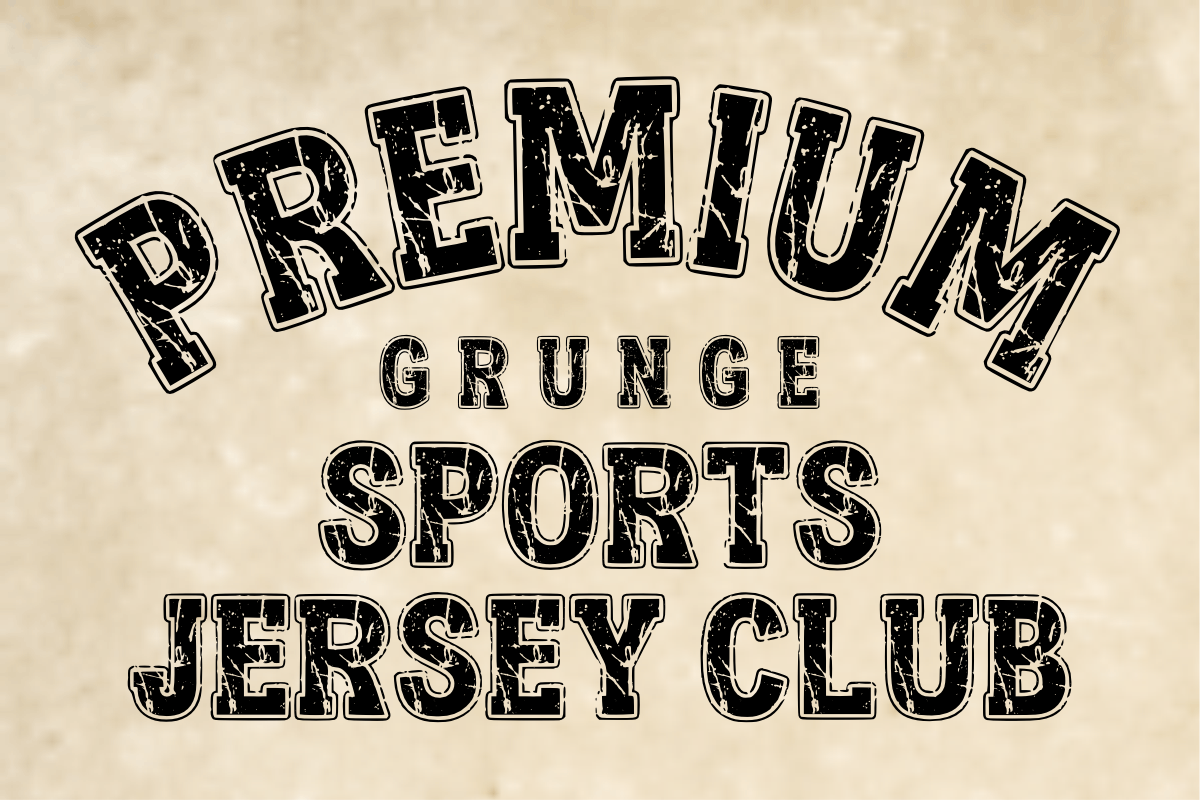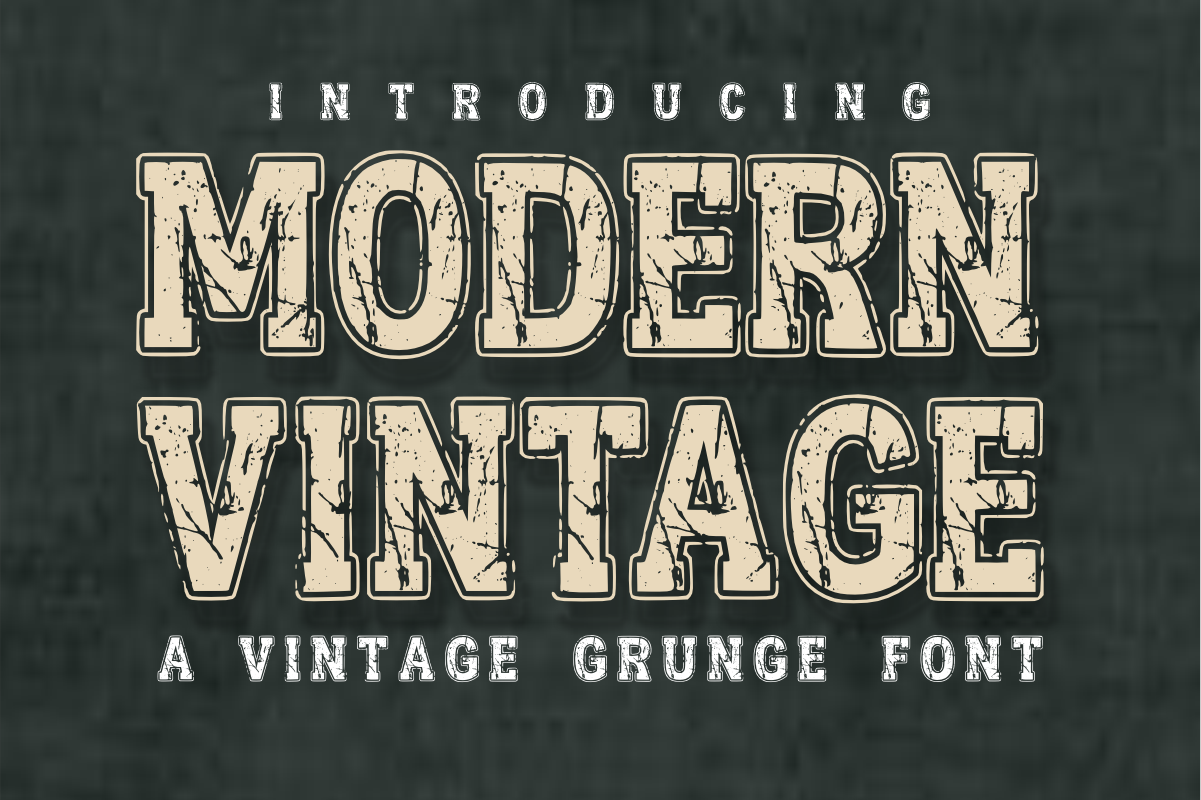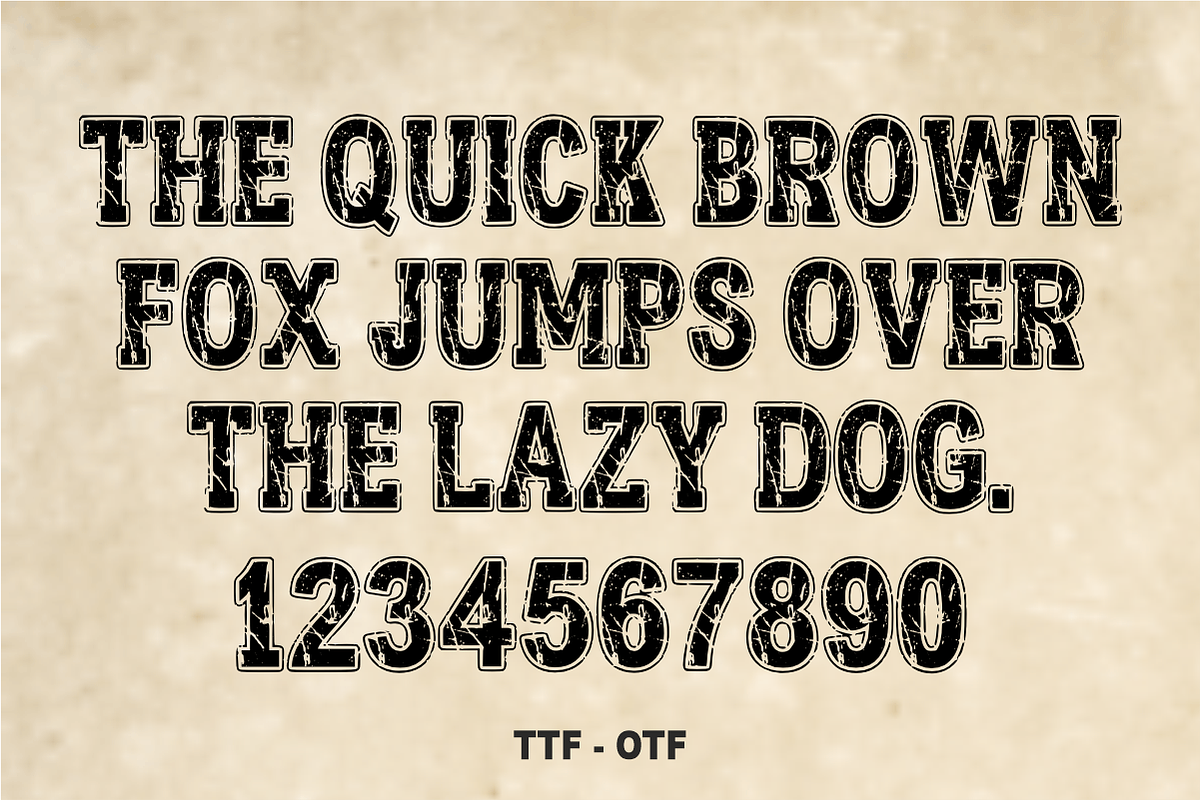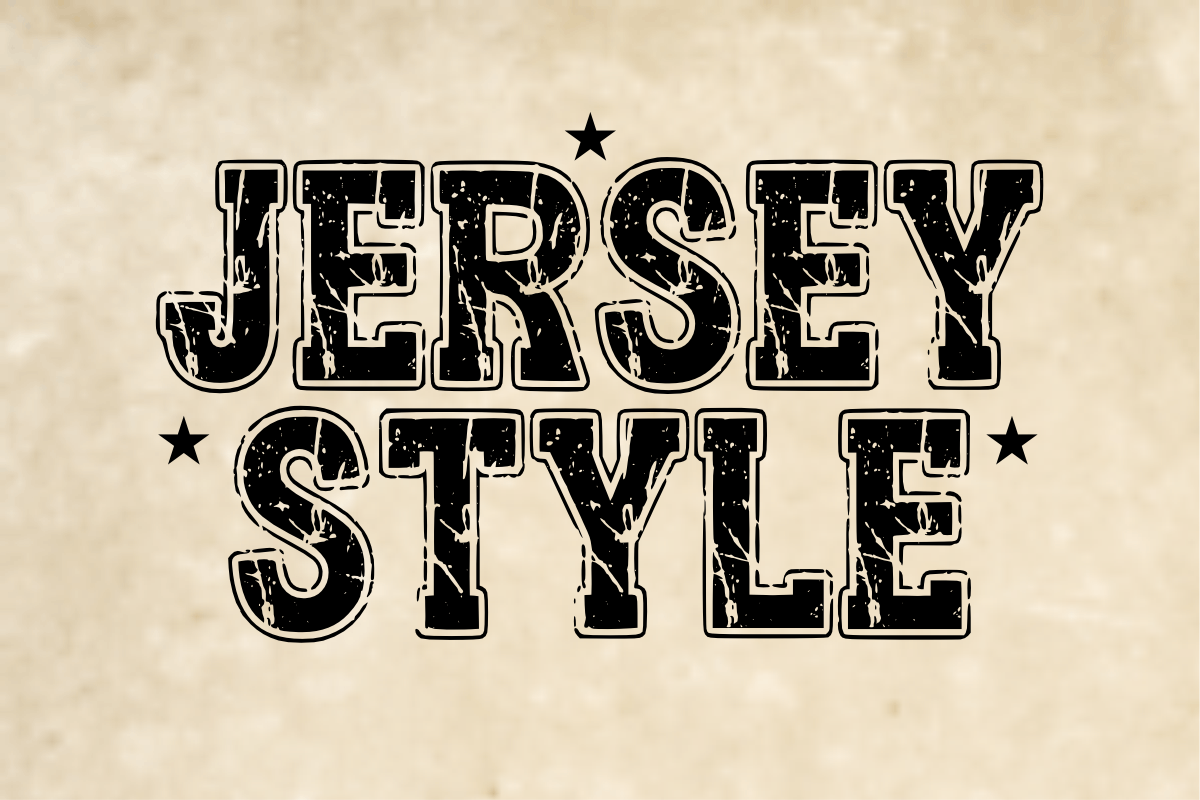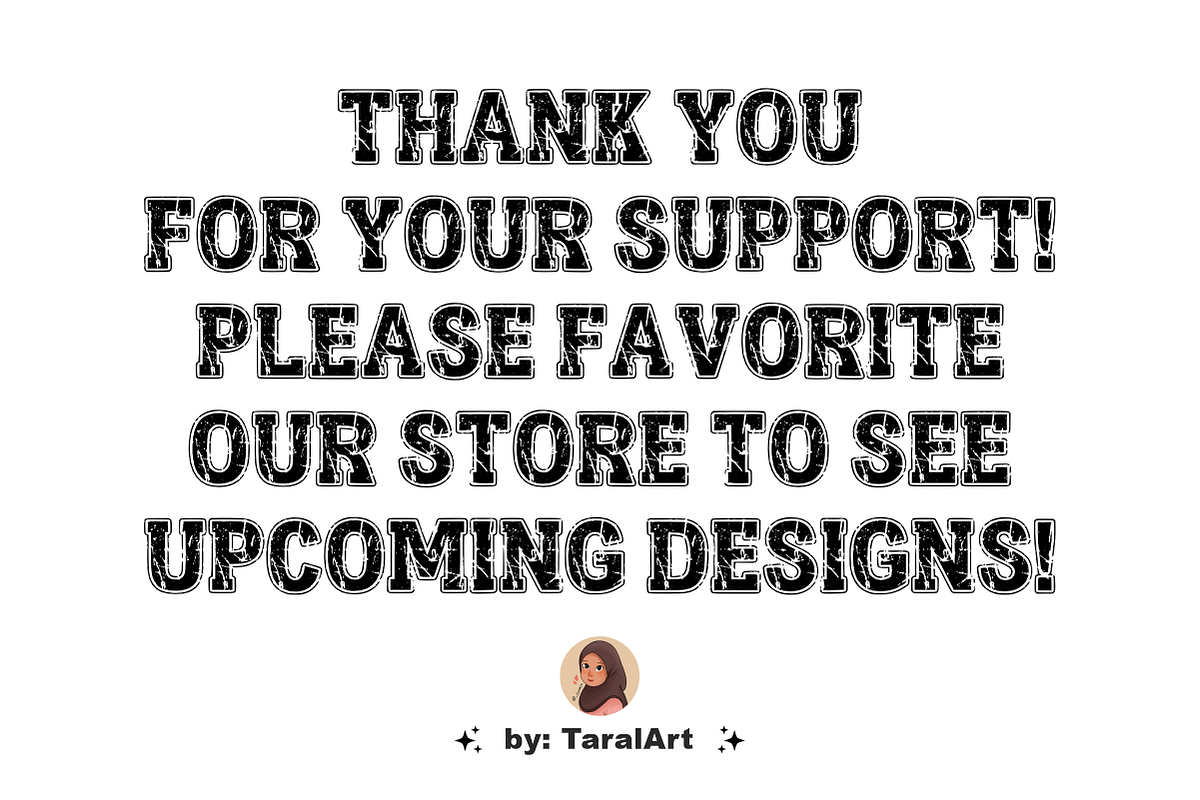
Modern Vintage - Grunge Slab Font
Modern Vintage is a bold, collegiate-inspired slab serif display font featuring a rugged, distressed grunge texture. Perfectly blending timeless varsity aesthetics with a worn, weathered look, this high-impact font is ideal for retro branding, athletic apparel, and rustic designs. Every character balances sharp geometric lines with authentic textures to deliver a powerful, nostalgic presence.
Ideal For:
Varsity t-shirts, athletic apparel prints, and streetwear merchandise
Vintage branding, industrial logos, and retro product packaging
Bold sports posters, fitness flyers, and event signage
Social media graphics, YouTube thumbnails, and masculine design themes
Retro coffee shop branding, garage labels, and badge designs
High-quality sublimations, print-on-demand products, and digital crafts